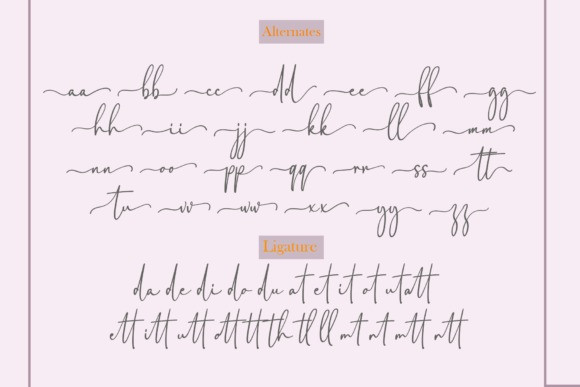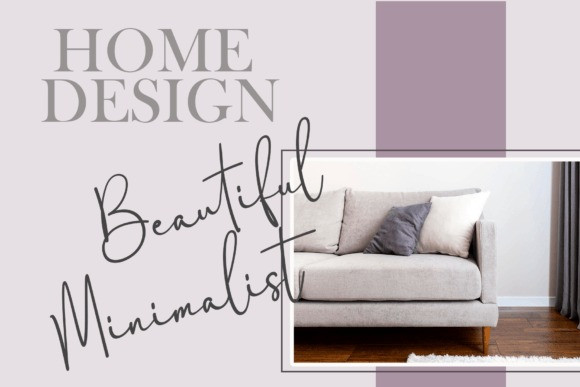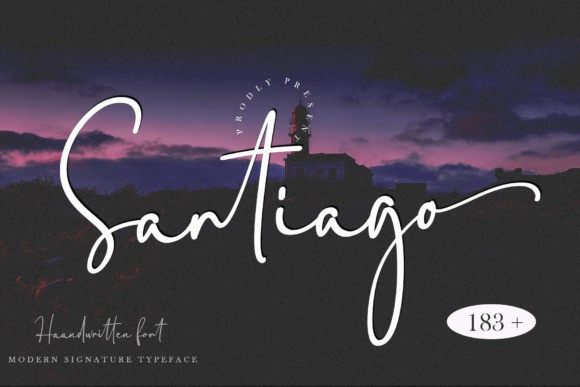
Santiago Signature Font
Santiago Signature Font is a stylish handwritten font with a contemporary atmosphere and impeccable form, inspired by timeless classic calligraphy. Not too thin and not too thick, balanced and varied, this font was carefully crafted to enhance the beauty of your projects. Add it to any of your designs and make them extraordinary!
Santiago Signature is PUA encoded, which means you can access all of the glyphs and swashes with ease!